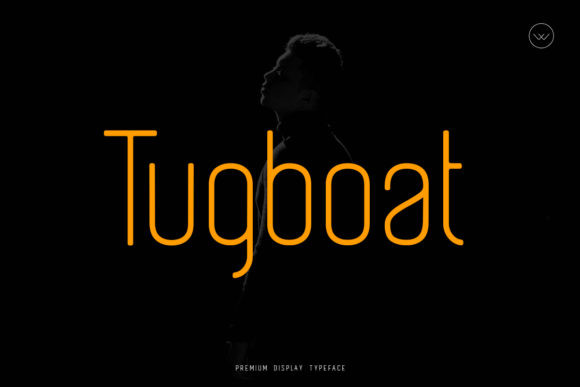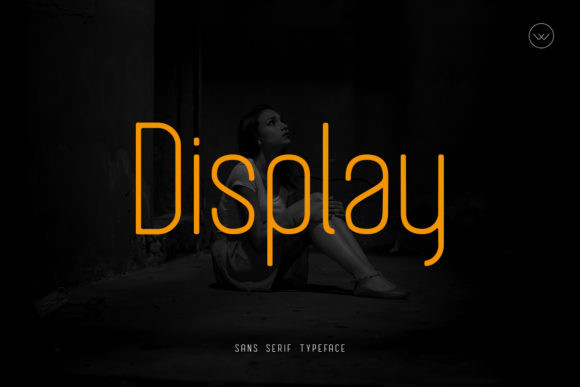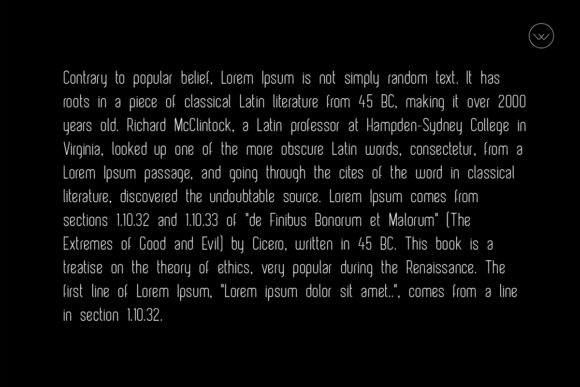
Tugboat Font
Tugboat is a modern and thin lettered sans serif font. It is suitable for any branding that requires a minimalist approach, product packaging, invitation, quote, t-shirt, label, poster, logo that you wish to develop.